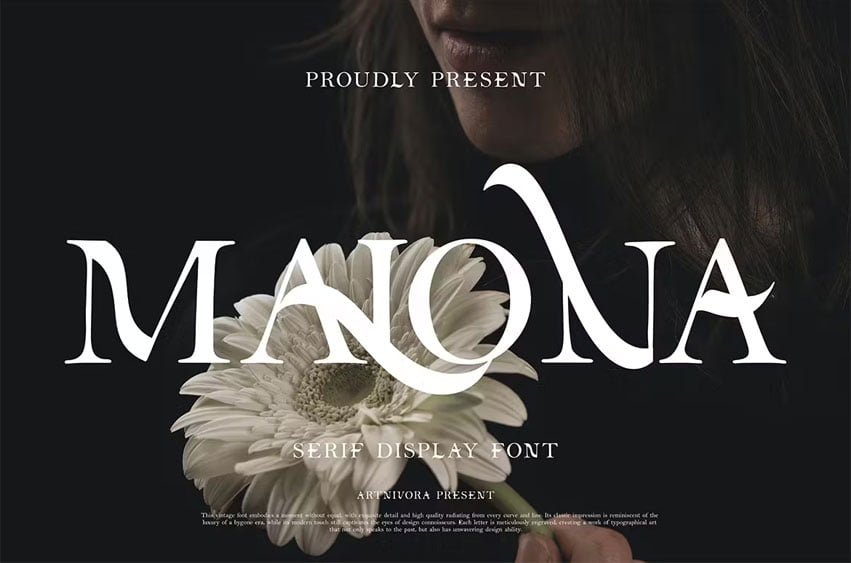
Malona Font is a simple and serif display font. So perfect for you who needs a typeface for logo designs, magazine, social media, brochure, and many more.